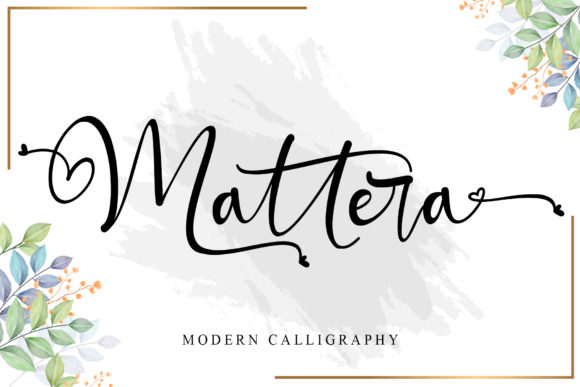
Unleash the charm of Mattera Font, a flowing symphony of handwritten elegance. Immerse yourself in the world of cursive artistry with a font that captures the essence of timeless beauty. Mattera is a PUA-encoded masterpiece, granting you effortless access to an array of glyphs and swashes that will enchant your designs.
Indulge in the varying baseline, smooth lines, and gorgeous glyphs that define Mattera's captivating presence. Each stroke, each curve, each letterform is meticulously crafted to evoke a sense of grace and fluidity. Whether you're designing wedding invitations, stationary art, captivating social media posts, or any other project craving a touch of sophistication, Mattera stands ready to elevate your creations.
Experience the allure of stunning alternates, a treasure trove of stylistic options that empower you to customize your designs with finesse. With Mattera, the possibilities are endless - explore a world where creativity knows no bounds, where every word, every phrase, every composition becomes an expression of your unique artistic vision.